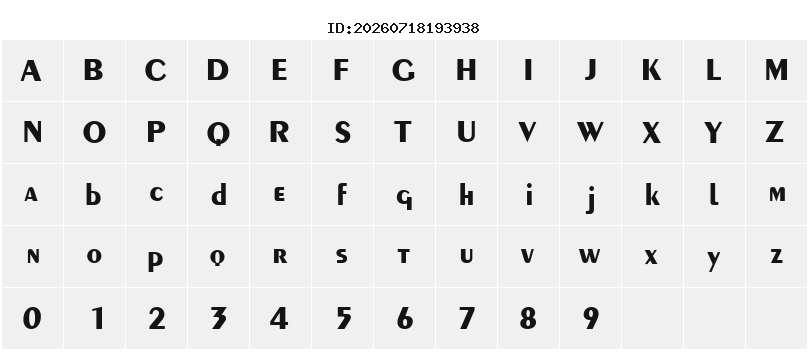
CremeBlackSSK Preview
• Font Name: CremeBlackSSK
• Full Font Name: CremeBlackSSK
About CremeBlackSSK.ttf
CremeBlackSSK.ttf is a modern, elegant sans-serif font designed for ultimate readability and visual harmony. Perfect for branding, headlines, web design, and print materials.